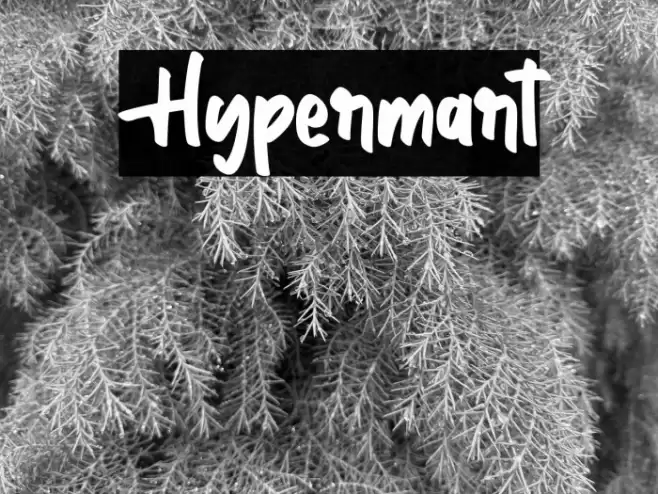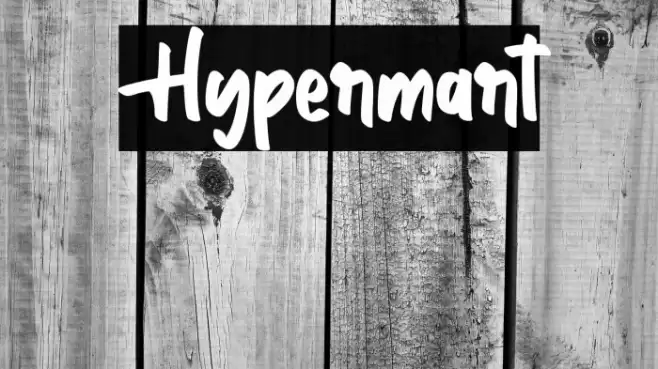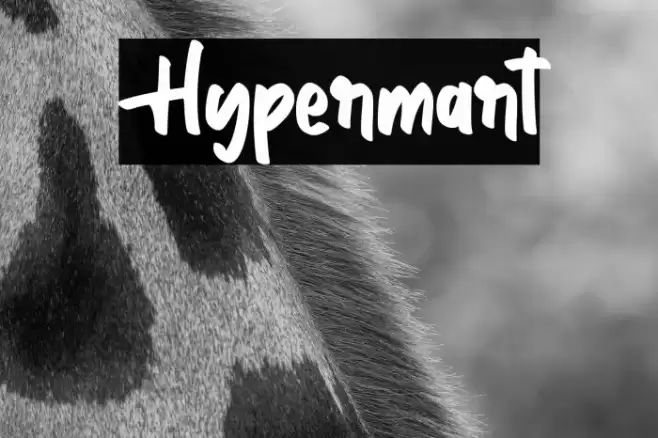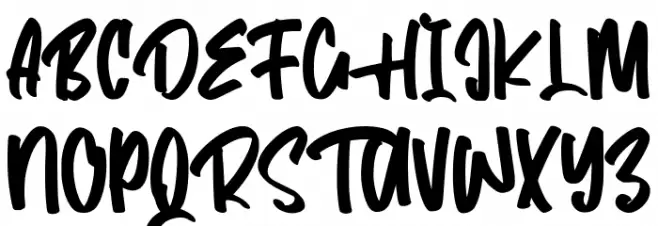
Hypermart Font
Hypermart Description
This font features a bold, handwritten style with a playful and energetic feel. The characters are thick and rounded, giving them a friendly and approachable appearance. The uppercase and lowercase letters maintain a consistent style, with a slight slant that adds to the dynamic look. The strokes are smooth and fluid, creating a sense of movement and liveliness. The font is well-suited for designs that require a personal touch, such as invitations, greeting cards, or branding for creative businesses. Its boldness ensures readability, while the unique character shapes add a distinctive flair.
A bold, handwritten font with a playful and energetic style from Regular fonts.
- Proposed Projects: Ideal for invitations, greeting cards, creative branding, and playful designs.
- Overall Style: Playful, Energetic
- Use Case: Logos, Headlines, Invitations